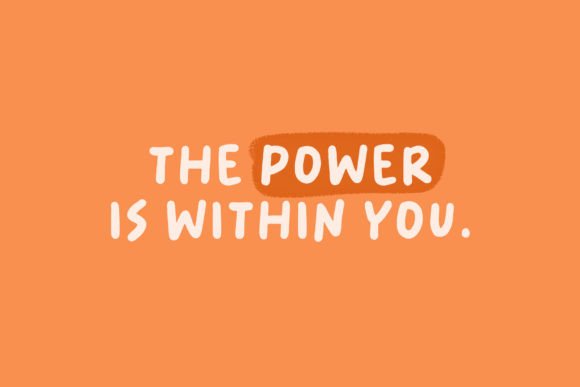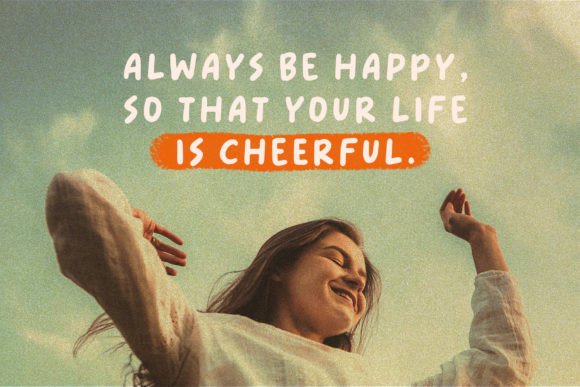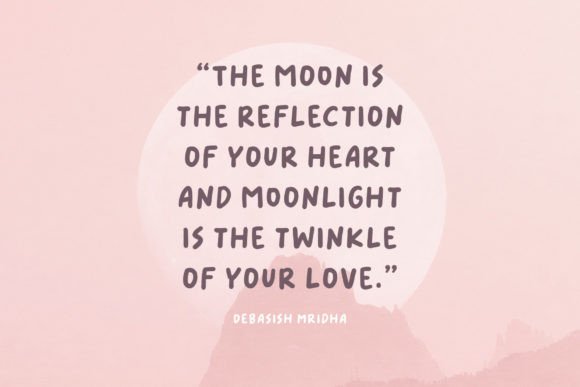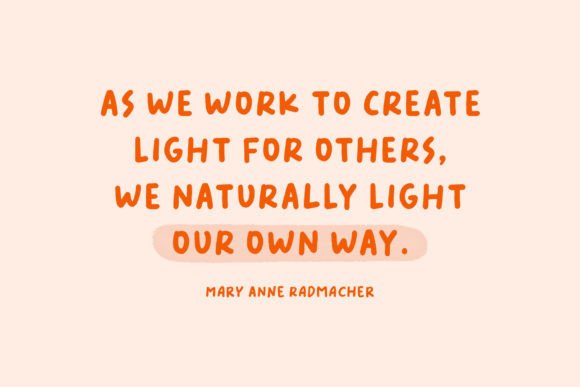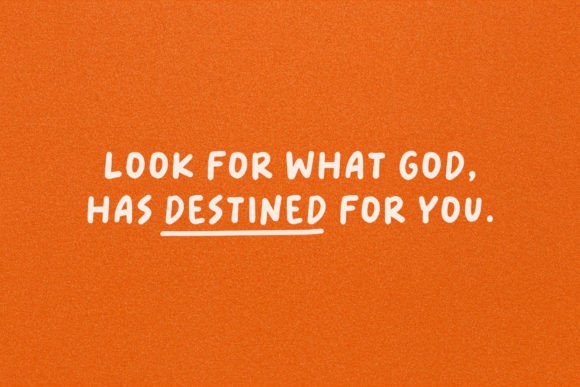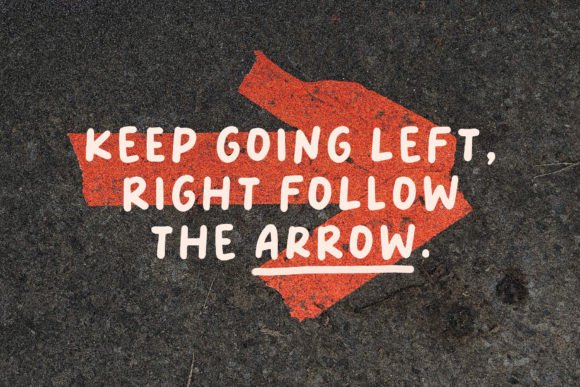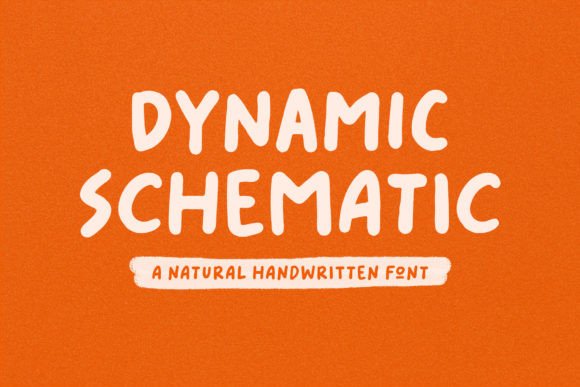
Introducing Dynamic Schematic Font: The Ultimate Display Font for Creative Projects
Are you tired of using the same old fonts for your creative projects? Look no further! Dynamic Schematic Font is here to revolutionize the way you approach typography. This natural display font is written with fun and relaxation in mind, making it perfect for a wide range of applications. From headlines and branding to quotes and social media posts, Dynamic Schematic is the ultimate font for designers and crafters.
What Makes Dynamic Schematic Font So Special?
Dynamic Schematic Font is a unique and versatile font that is designed to add a touch of personality to any project. Its natural and relaxed style makes it perfect for creative projects that require a friendly and approachable tone. Whether you’re working on a logo, brochure, or social media post, Dynamic Schematic Font is sure to make your content stand out.
Dynamic Schematic Font is perfect for a wide range of applications, including:
- Headlines: Add a touch of personality to your headlines with Dynamic Schematic Font.
- Branding: Create a unique and recognizable brand identity with this versatile font.
- Quotes: Make your quotes stand out with Dynamic Schematic Font’s fun and relaxed style.
- Social Media Posts: Add a touch of personality to your social media posts and make them more engaging.
- Banners: Create eye-catching banners with Dynamic Schematic Font.
- Magazines: Add a touch of personality to your magazine layouts with this unique font.
- Books: Use Dynamic Schematic Font to add a touch of personality to your book titles and headings.
Why Choose Dynamic Schematic Font?
There are many reasons why you should choose Dynamic Schematic Font for your creative projects. Here are just a few:
- Unique Style: Dynamic Schematic Font has a unique and recognizable style that will set your projects apart.
- Versatility: This font is perfect for a wide range of applications, from headlines to social media posts.
- Easy to Read: Despite its unique style, Dynamic Schematic Font is easy to read and understand.
- Fun and Relaxed: This font is written with fun and relaxation in mind, making it perfect for creative projects that require a friendly tone.
Tips for Using Dynamic Schematic Font
Here are a few tips for using Dynamic Schematic Font in your creative projects:
- Use it for Headlines: Dynamic Schematic Font is perfect for headlines, so use it to add a touch of personality to your titles.
- Experiment with Colors: This font looks great in a variety of colors, so don’t be afraid to experiment and find the perfect color for your project.
- Pair it with Other Fonts: Dynamic Schematic Font pairs well with a variety of other fonts, so try pairing it with a serif font for a unique look.
- Use it for Quotes: Dynamic Schematic Font is perfect for quotes, so use it to add a touch of personality to your inspirational quotes.
Dynamic Schematic Font is a unique and versatile font that is perfect for creative projects. Its natural and relaxed style makes it perfect for a wide range of applications, from headlines to social media posts. With its easy-to-read style and fun and relaxed tone, Dynamic Schematic Font is sure to become a favorite among designers and crafters. So why wait? Download Dynamic Schematic Font today and start adding a touch of personality to your creative projects!
Whether you’re a designer, crafter, or simply someone who loves typography, Dynamic Schematic Font is a must-have font for your collection. Its versatility and unique style make it perfect for a wide range of applications, and its easy-to-read style makes it perfect for both digital and print projects. So what are you waiting for? Get creative with Dynamic Schematic Font today!